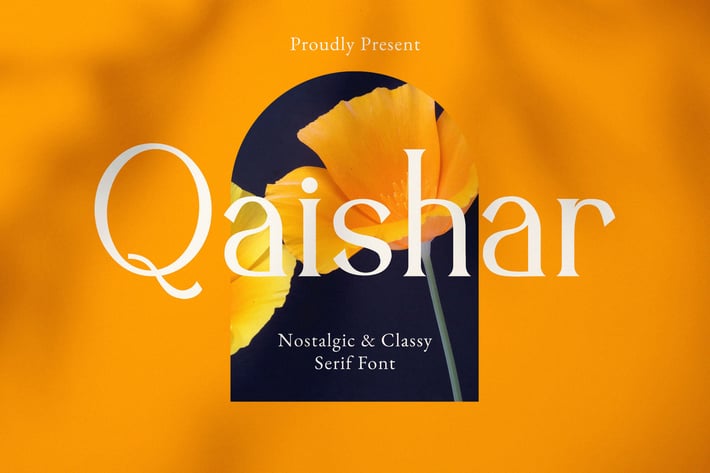
Qaishar - Classy Serif Font
Qaishar is a classy and stylish font, best used as a display for headings, logos, branding, magazines, product packaging and invitations.